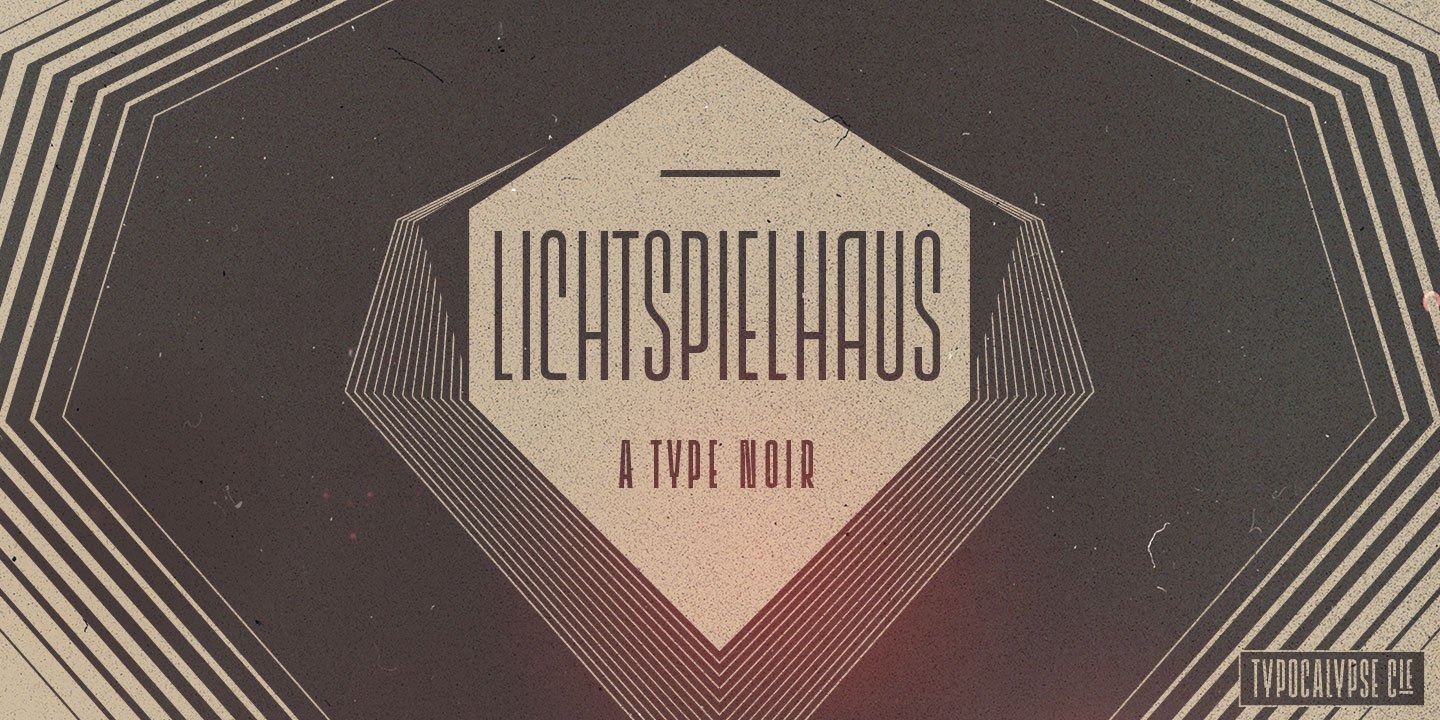
Lichtspielhaus Sans Font Family
Lichtspielhaus Sans Font Family is a distinctive and expressive font crafted to bring personality, structure, and creative energy into your projects. Lichtspielhaus is an ultra condensed Lichtspiele spin-Off with 8 weights. It still transports you back to a time where neon lights and marquee letters decorated cinema facades. There are 8 styles: Hairline, Thin, Light, Regular, Medium, Bold, Black and Heavy. “Lichtspielhaus” is the first part of a new Type Noir Quadrilogy.